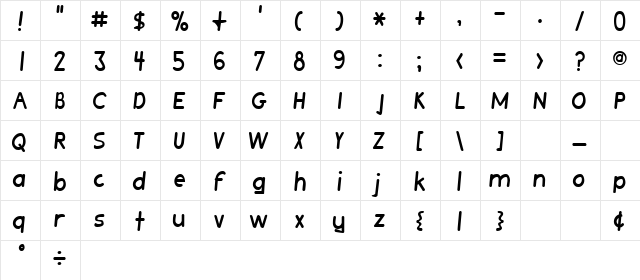
Aquillia Bold
Design Context for Aquillia Typeface
Aquillia takes a measured approach to typography — its balanced proportions and neutral character make it a reliable workhorse for both digital and print work. Its bold stroke weight gives it real presence on the page.